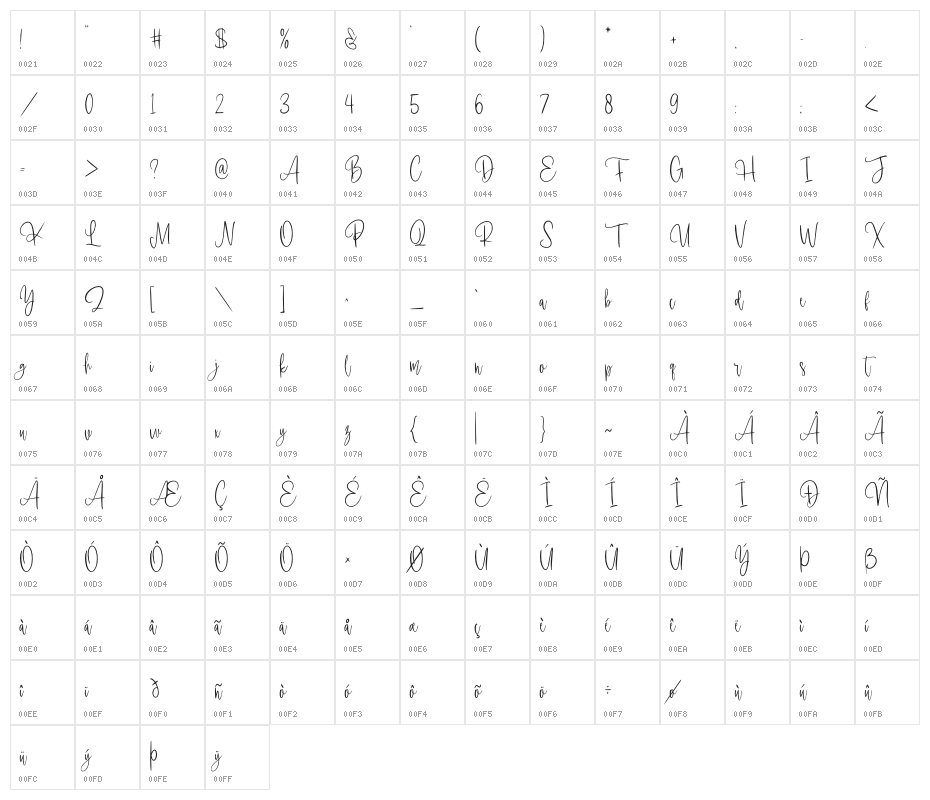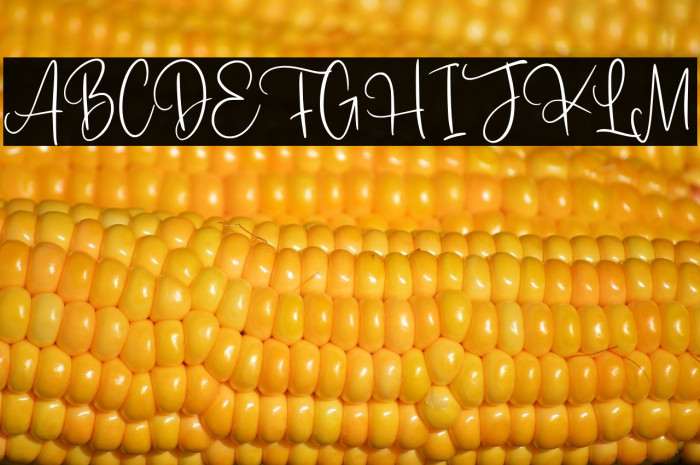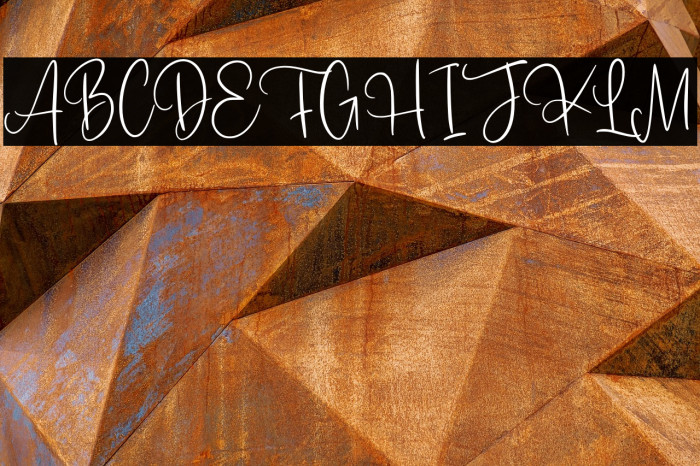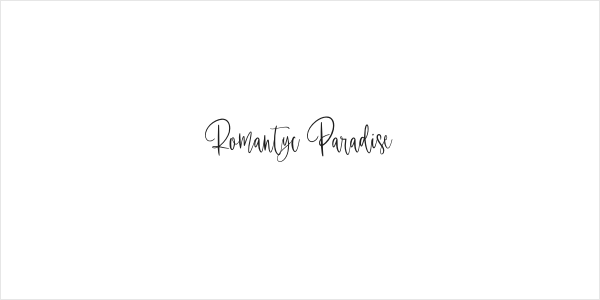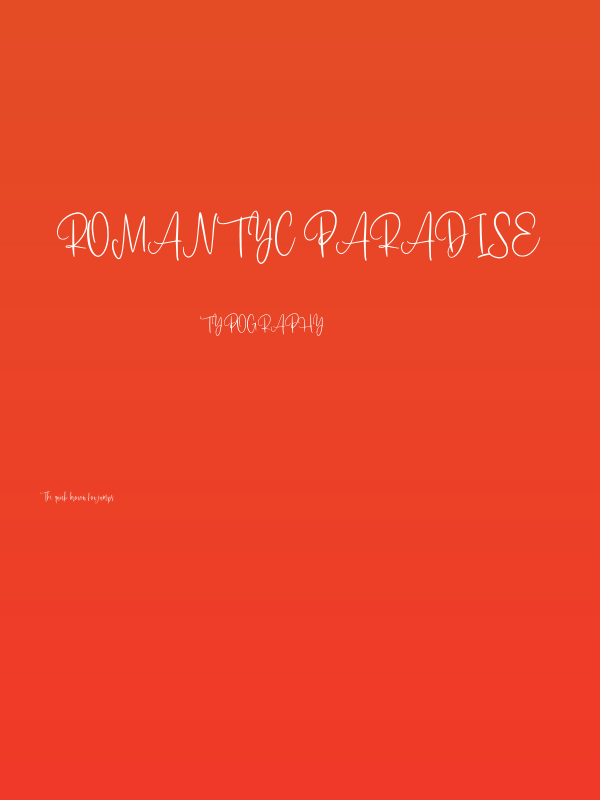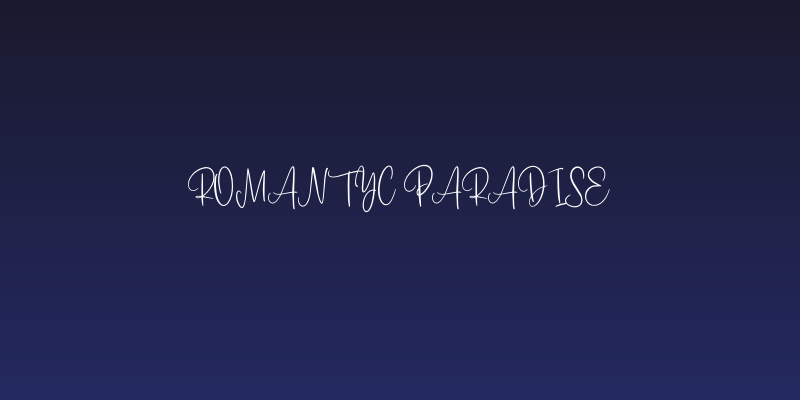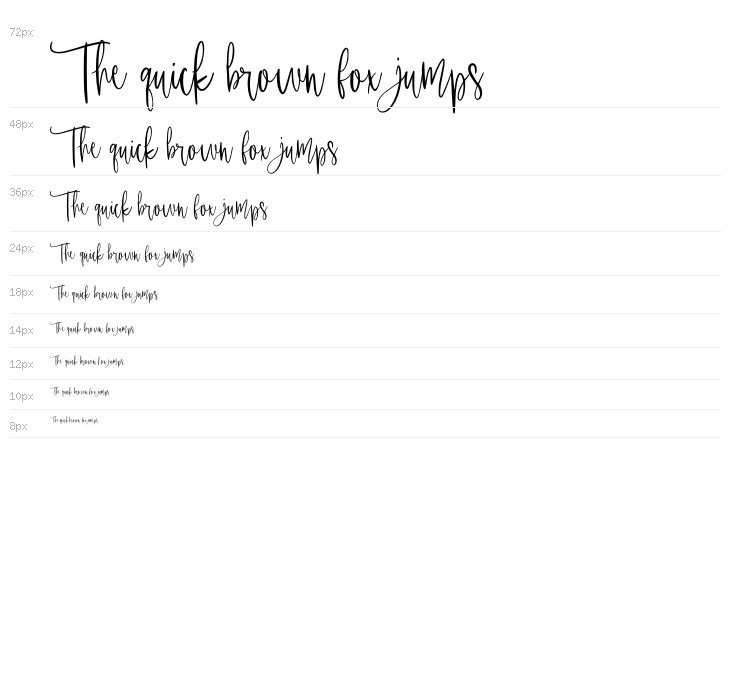
Romantyc Paradise Font
Romantyc Paradise Description
This elegant script font features flowing, cursive letters with a romantic and whimsical touch. The uppercase letters are tall and graceful, with sweeping curves and delicate loops that give a sense of movement and fluidity. The lowercase letters maintain a consistent style, with a slightly more compact form, yet still retaining the same elegant flair. The numerals are clear and stylish, complementing the overall aesthetic. Special characters are thoughtfully designed to match the font's sophisticated style, making it versatile for various uses. The font's overall appearance is both classic and modern, making it suitable for a wide range of design projects.
| Overall Style | Romantic, Elegant |
| Use Case | Headlines, Invitations, Branding |
| Proposed Projects | Ideal for wedding invitations, greeting cards, branding, and elegant logos. |